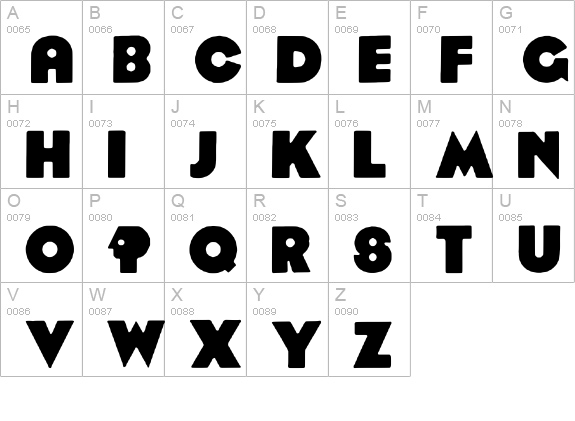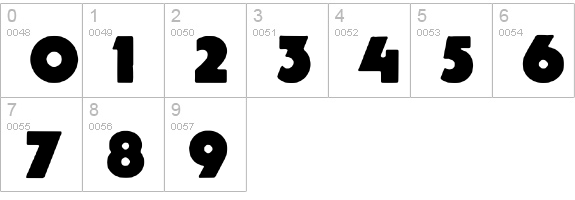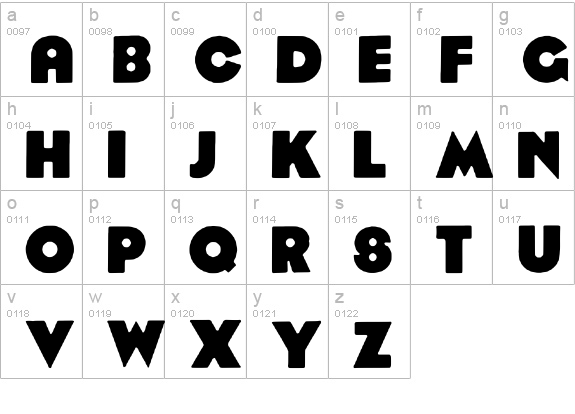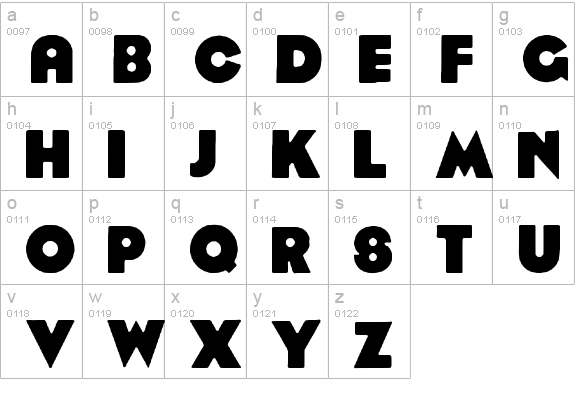
Pbs logo is a completely free font in the Theme > Logo category, designed by Harrieloto. It has been downloaded 294 times and is available for Windows, Mac and Linux.
The PBS logo font exudes a sense of sophistication and modernity, making it an ideal choice for a variety of design projects. With its clean lines and sleek curves, this font conveys a sense of professionalism and elegance. The PBS logo font is versatile and can be used for a wide range of applications, from branding to editorial design.